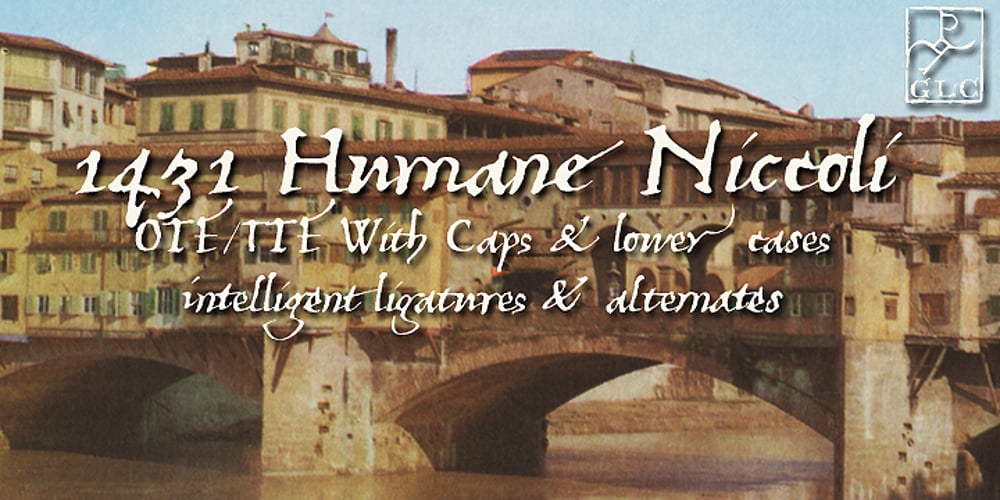
1431 Humane Niccoli Font Family was designed by published by GLC. 1431 Humane Niccoli contains 1 styles and family package options. Niccolo Niccoli (1364-1437) was a wealthy bibliophile and an acclaimed scribe, in Florence (Italy). He was one of the most important Italian calligrapher in this early time of rediscovering Roman script. Of rare accomplishment was his adaptation of the so called Italian humanistic minuscule script. We were inspired from his late work to create this present Font. We have added a lot of accented and other characters (U/V, I/J…) who was not existing in the original and replacing “long s” by a small “s” for a modern use. The OTF encoding was used for intelligent alternates, permitting to use different forms of the same lower case or capital in a single word, reproducing easily the charming variety of a real manual scripture.